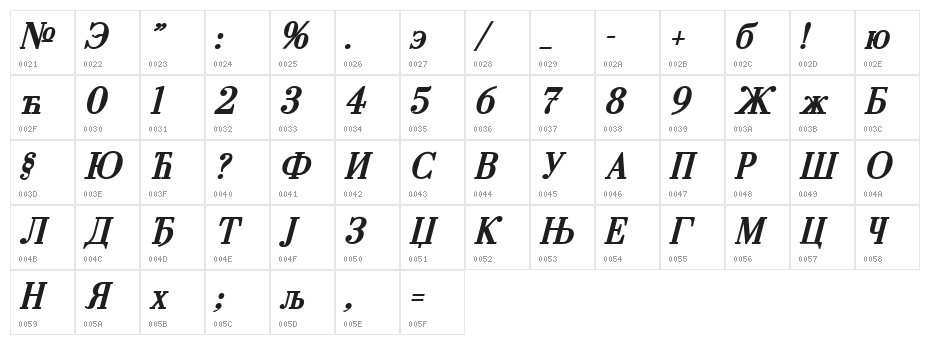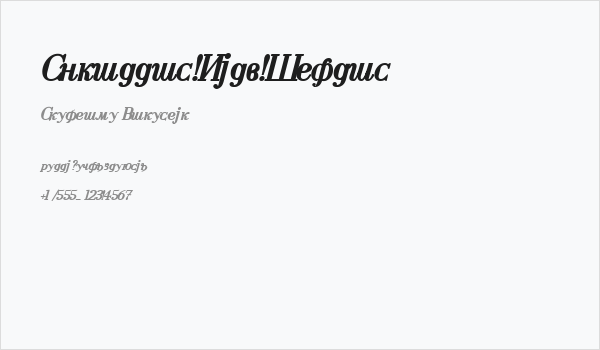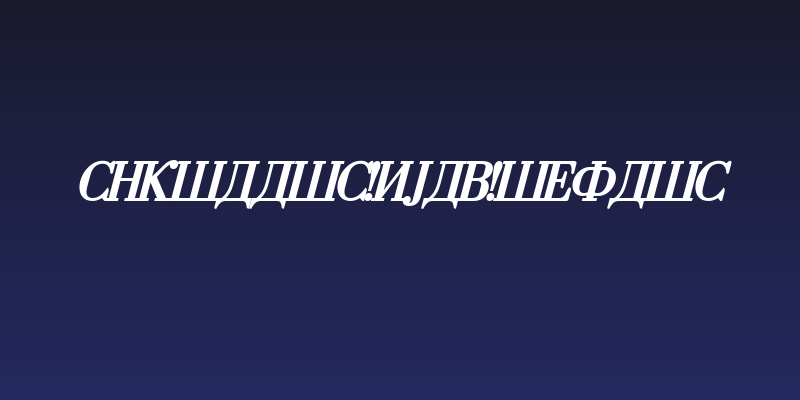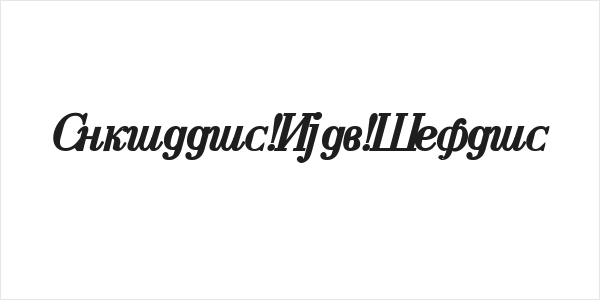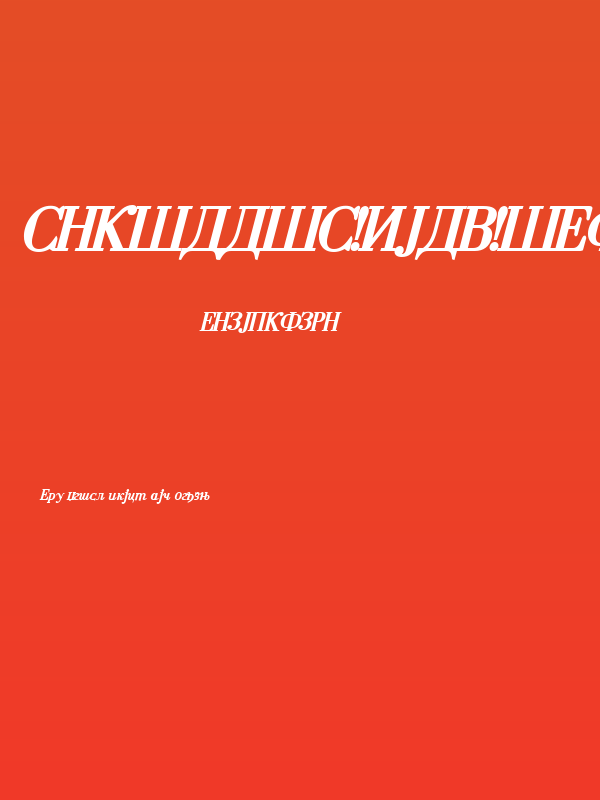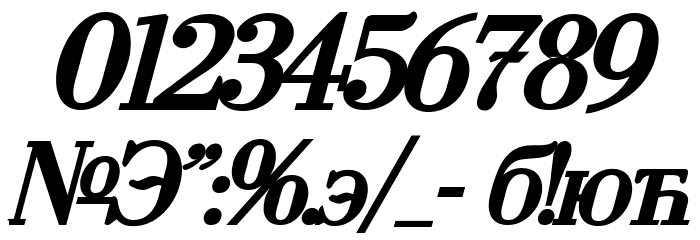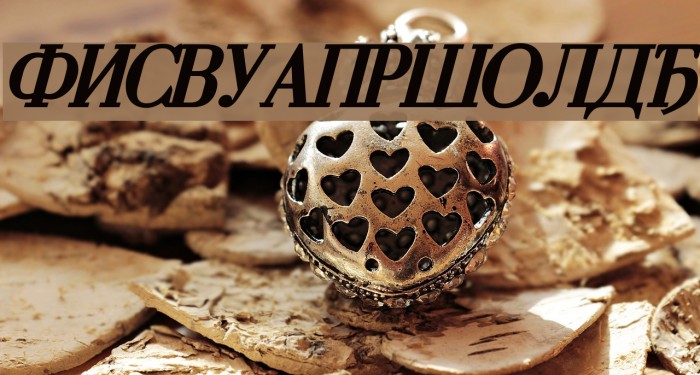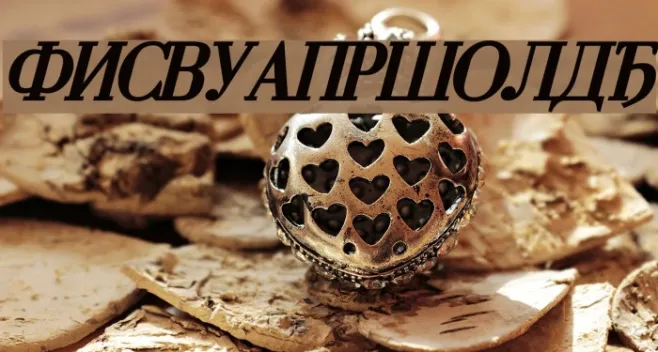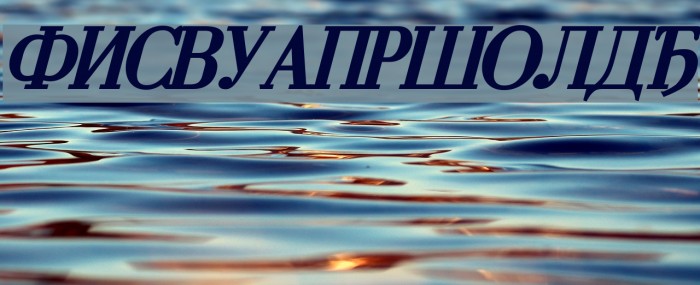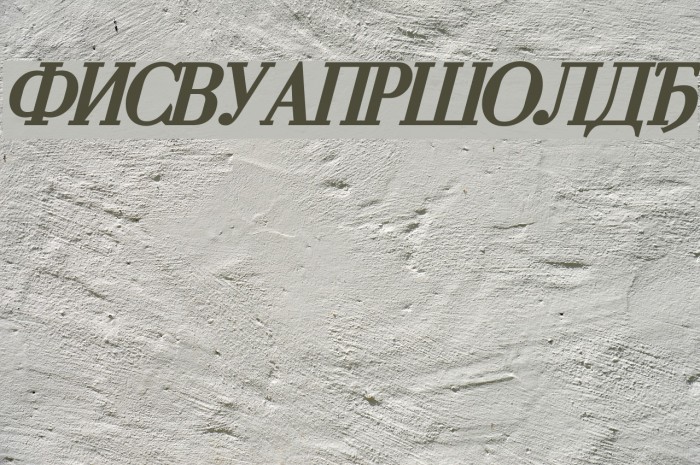
Cyrillic-Bold-Italic Font
Cyrillic-Bold-Italic Description
This font features a bold and italicized style with a strong presence, making it ideal for attention-grabbing designs. The Cyrillic characters are elegantly slanted, providing a dynamic and sophisticated look. The strokes are thick and consistent, contributing to a high contrast that enhances readability. The numerals and special characters maintain the same boldness, ensuring uniformity across different text elements. This font's distinctive flair is perfect for projects that require a touch of elegance and emphasis.
| Use Case | Headlines, Logos, Branding |
| Proposed Projects | Ideal for headlines, branding, posters, and any design requiring a bold statement. |